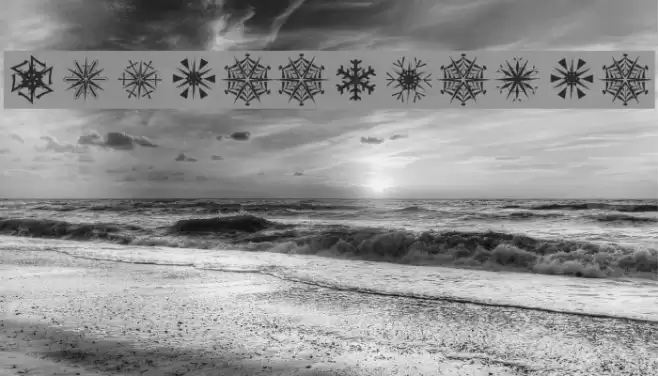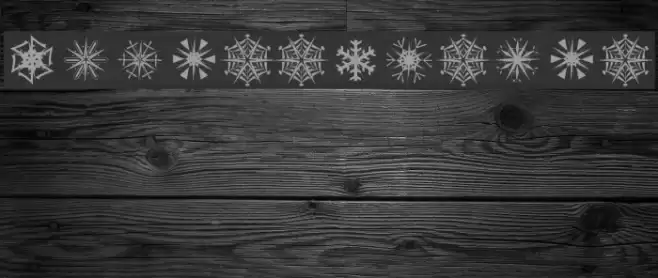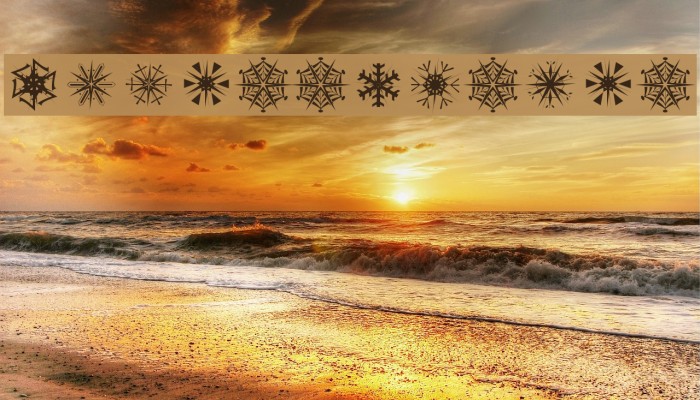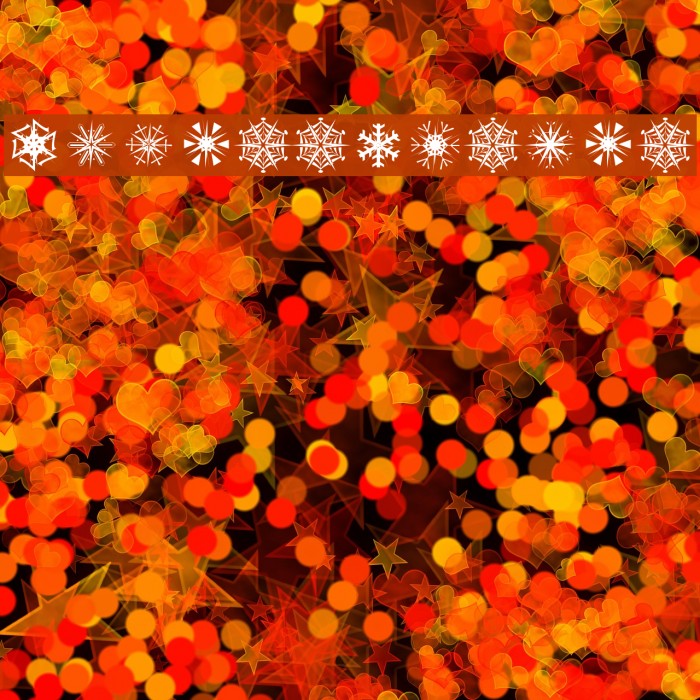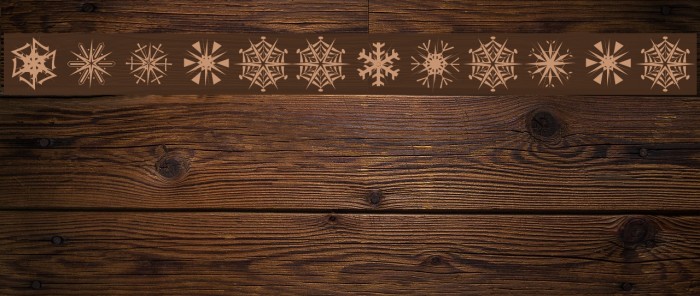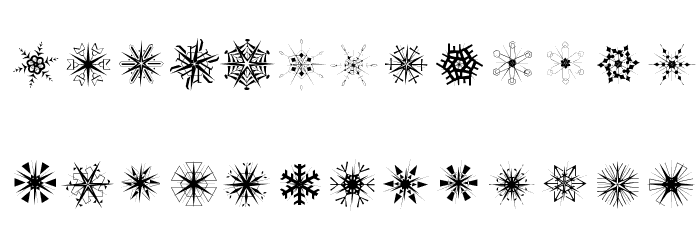
Schneesterne Font
Schneesterne Description
A decorative display font composed entirely of unique snowflake illustrations for each character, featuring intricate geometric and organic shapes with varying stroke weights and levels of detail.
- Proposed Projects: Winter holiday cards, seasonal branding, festive event invitations, decorative posters, and themed crafts.
- Overall Style: Decorative, Thematic, Seasonal
- Use Case: Logos, Headlines, Posters, Crafts